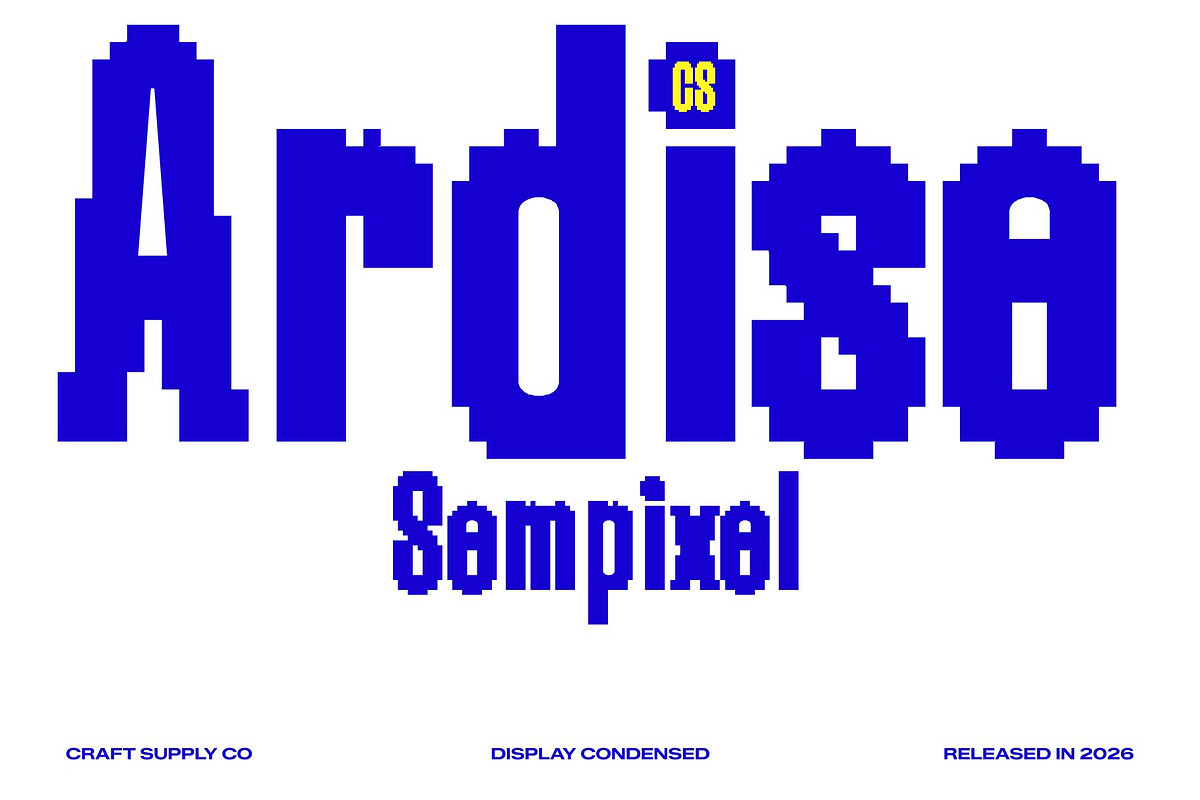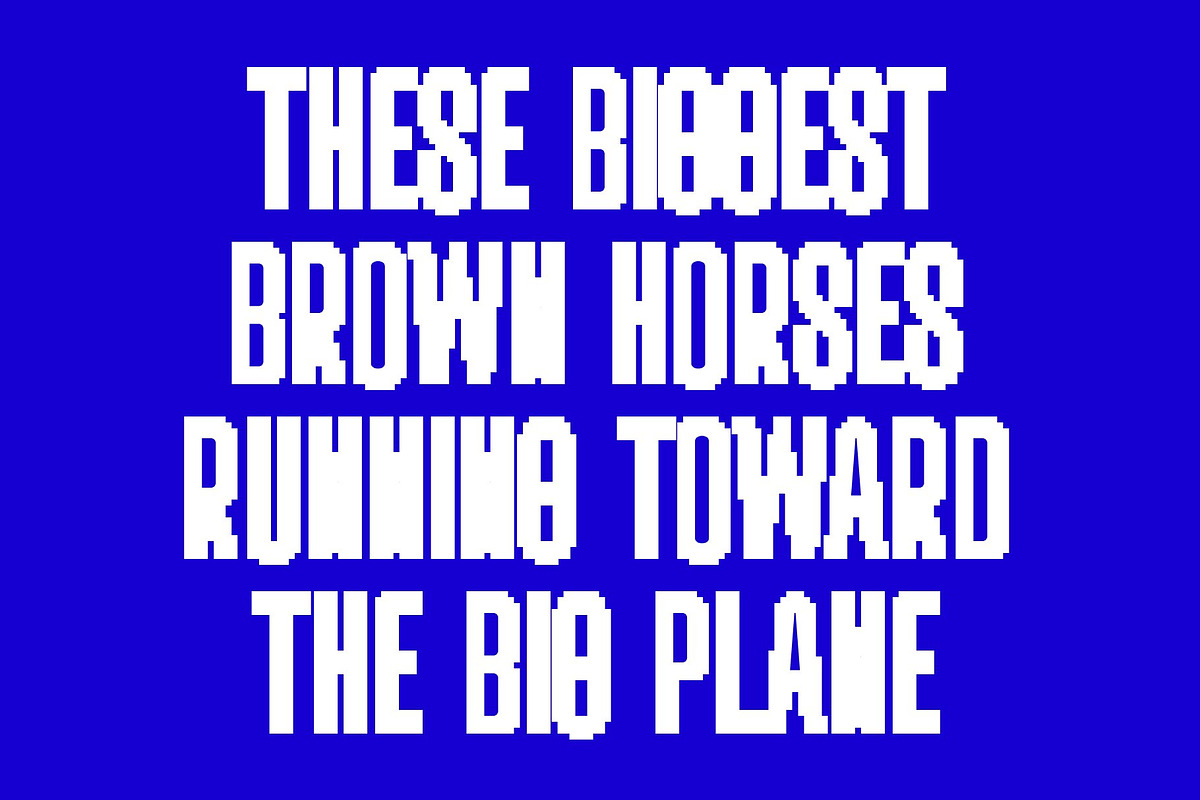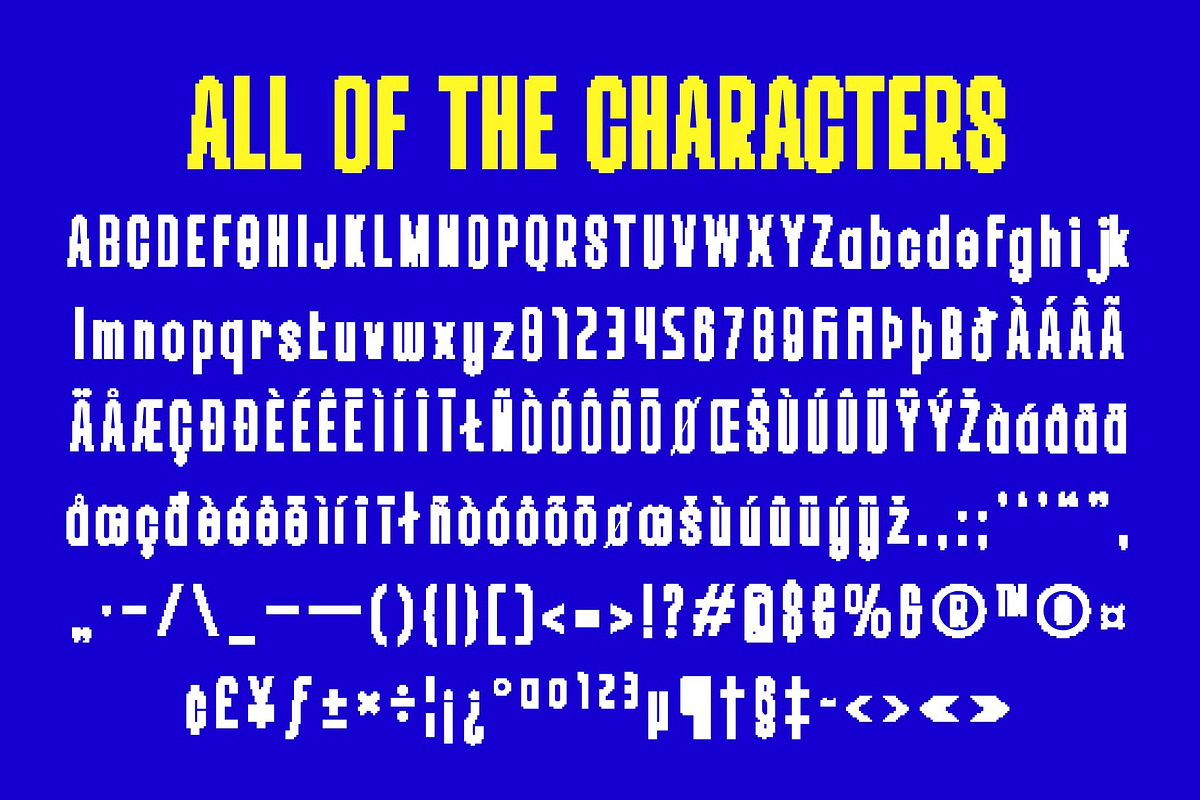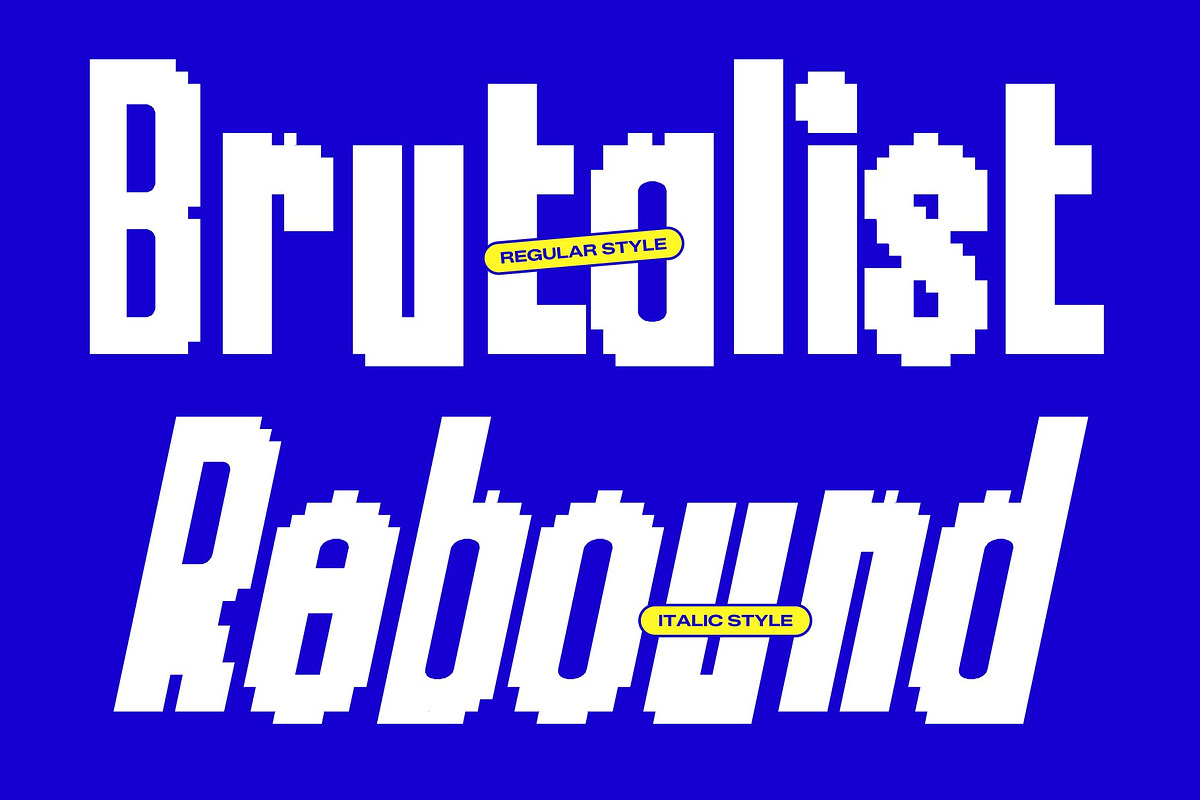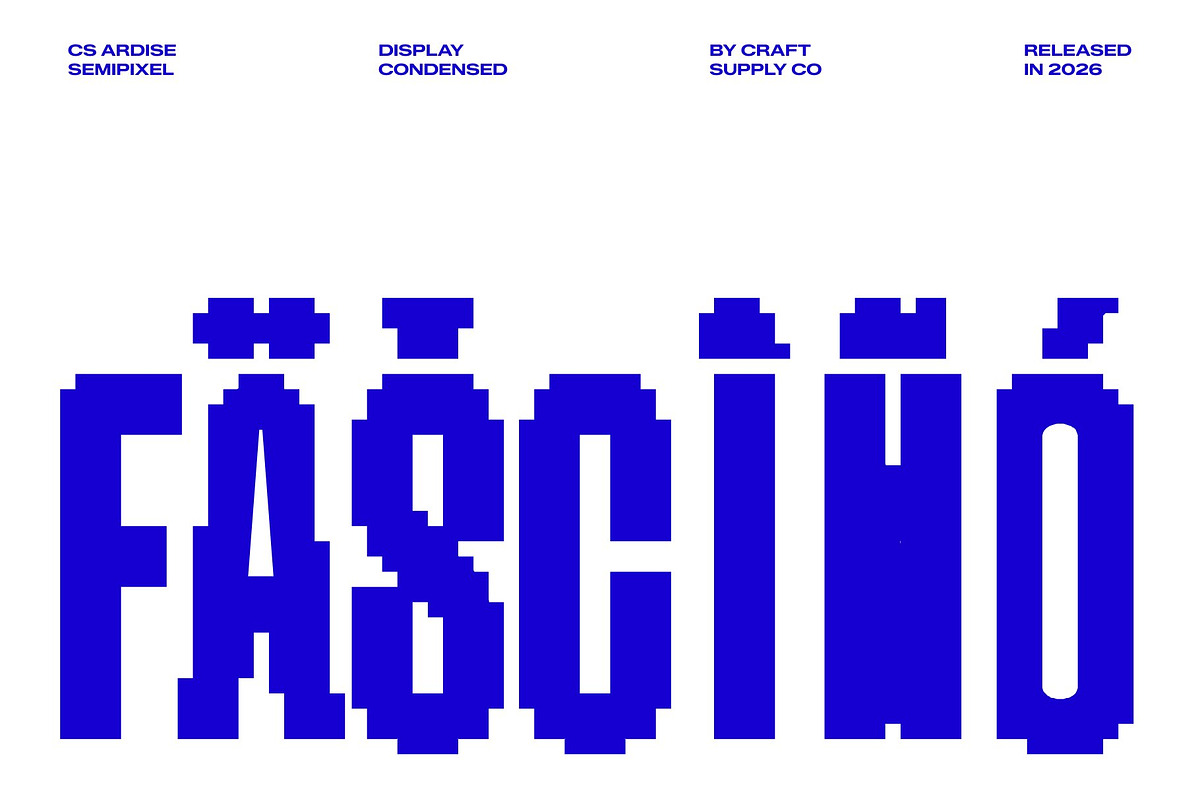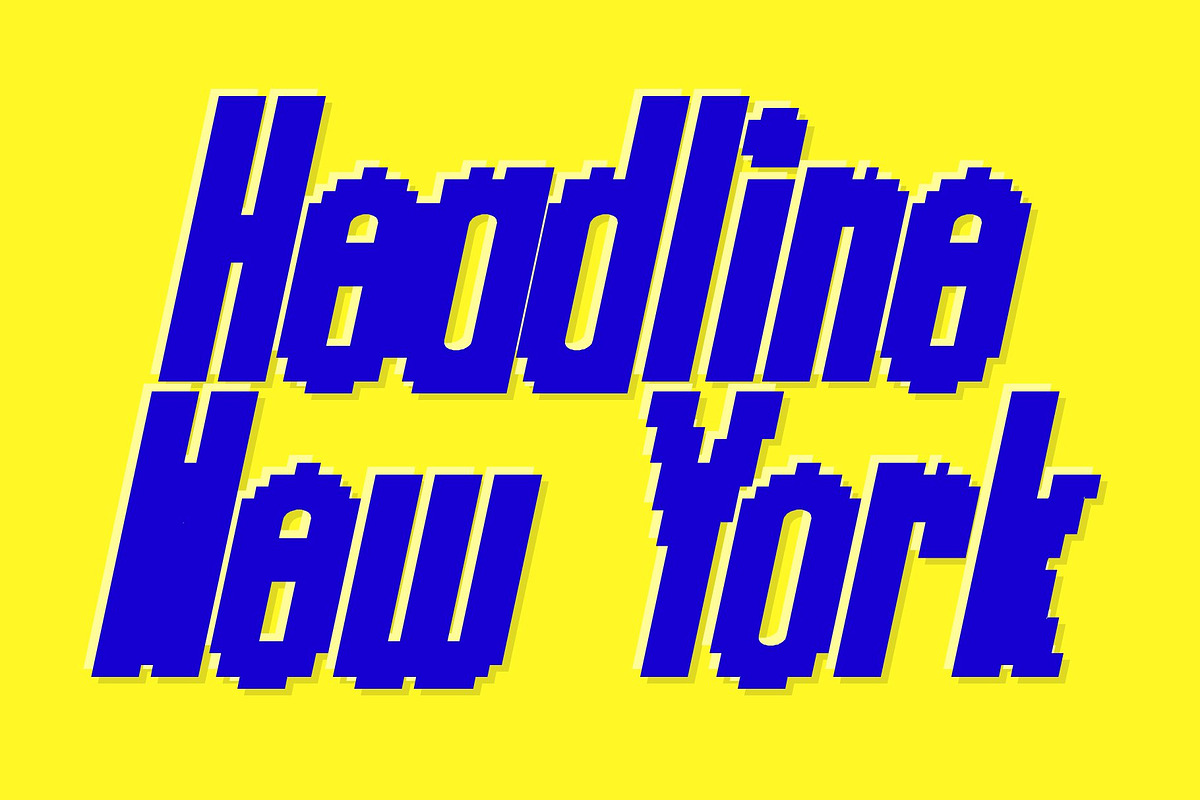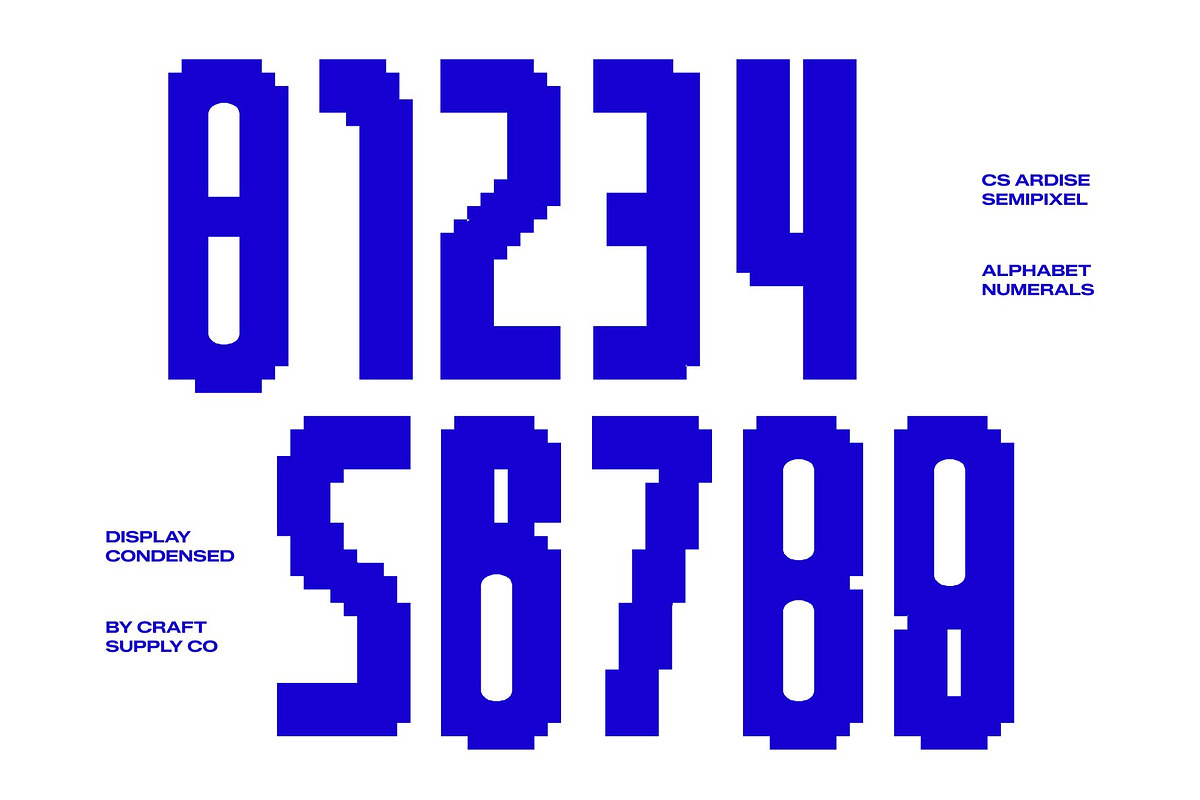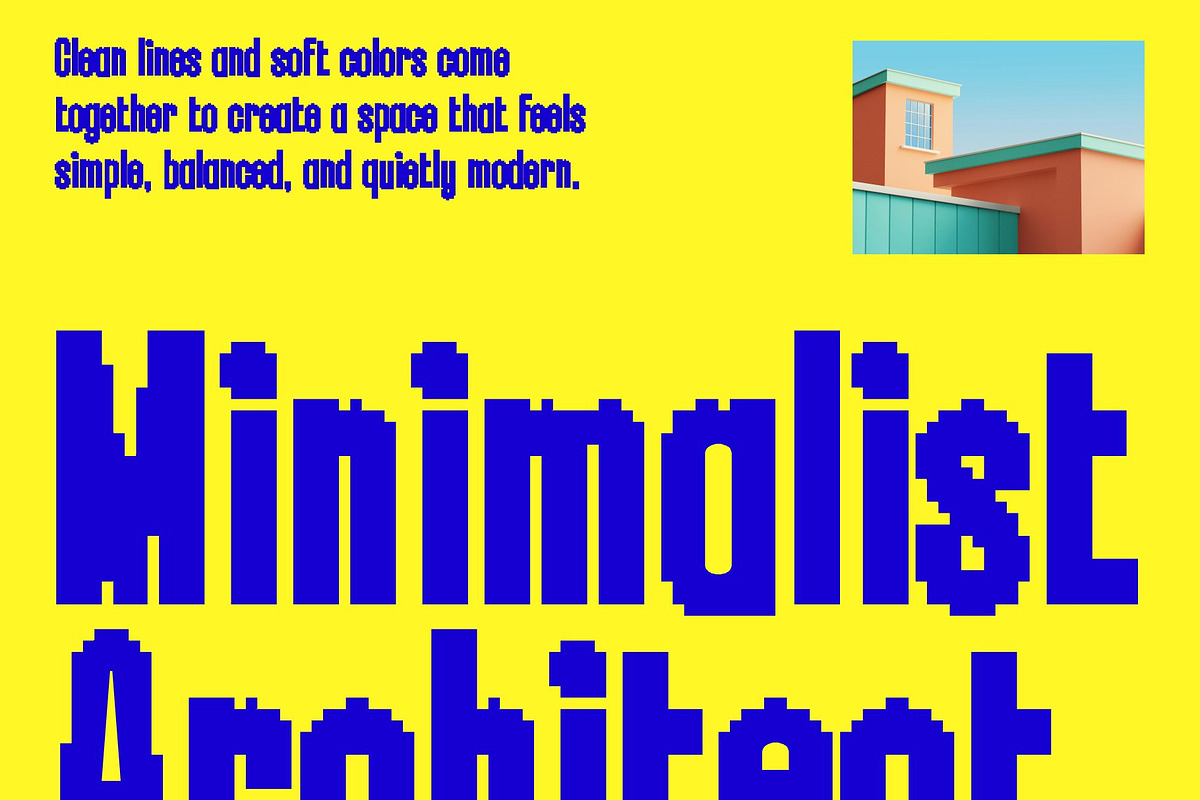
CS Ardise Semipixel
CS Ardise Semipixel – Condensed Sans Serif with Industrial Impact
Condensed Sans Serif for Strong Visual Efficiency This is a modern condensed sans serif font engineered to deliver strong visual impact in compact spaces. Its streamlined proportions and confident structure turn every headline into a bold, commanding statement. Designed for contemporary designers, this typeface brings together efficiency and power, making typography feel direct, controlled, and unmistakably modern.
Built for Compact Layouts and High Readability The condensed form is carefully optimized to maximize space without compromising clarity. Each letterform is constructed with precise vertical balance, ensuring legibility even in dense layouts and fast-paced visual environments. This makes the font highly effective for posters, banners, editorial headlines, and any design that requires strong communication in limited space.
Semi Pixel Industrial Character with Modern Refinement This font blends subtle pixel-inspired geometry with smooth modern curves, creating a distinctive semi pixel aesthetic. The square-based details introduce a technological, industrial edge, while the refined contours keep the overall appearance clean and approachable.
Perfect for Tech, Gaming, and Bold Branding Systems Built for versatility, this font performs exceptionally well in startup branding, gaming visuals, technology logos, digital event posters, UI design, and modern web environments. Its condensed efficiency, industrial tone, and semi pixel styling combine to produce typography that stands out with clarity and confidence across digital-first applications.